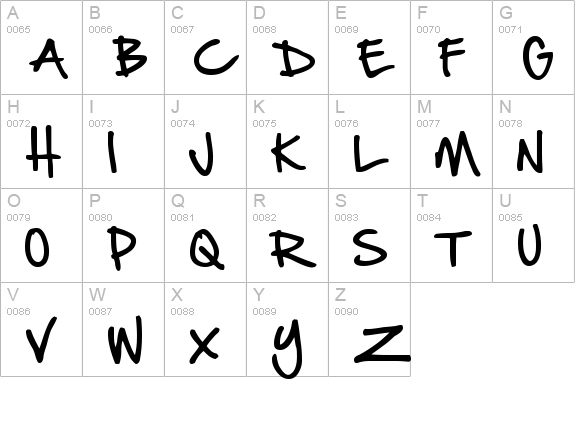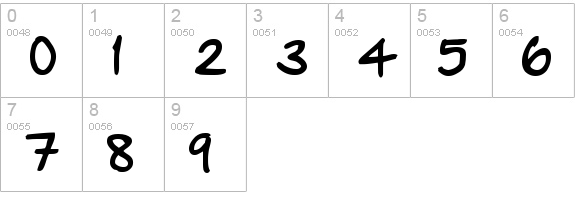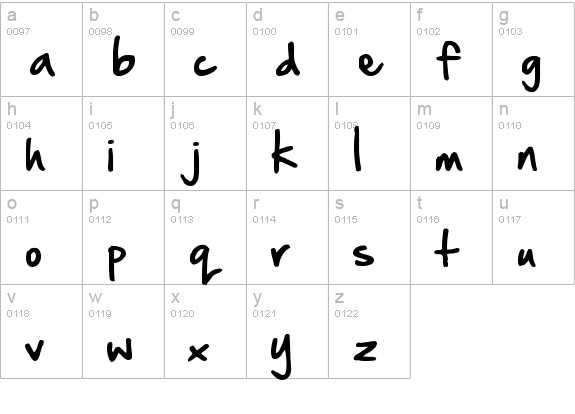
Hand of Sean Font Details
Hand of Sean font is a whimsical and playful typeface that exudes charm and character. Its handwritten style gives a personal touch to any project, making it perfect for greeting cards, invitations, and other creative designs. The flowing lines and unique flourishes of Hand of Sean add a touch of elegance and sophistication to your text. This font is available for free download at FontsMarket.com, where you can easily access and use it for both personal and commercial projects. With its versatility and timeless appeal, Hand of Sean font is sure to become a favorite in your collection of fonts. Let your creativity shine with this beautiful and free typeface that will bring warmth and personality to your designs.